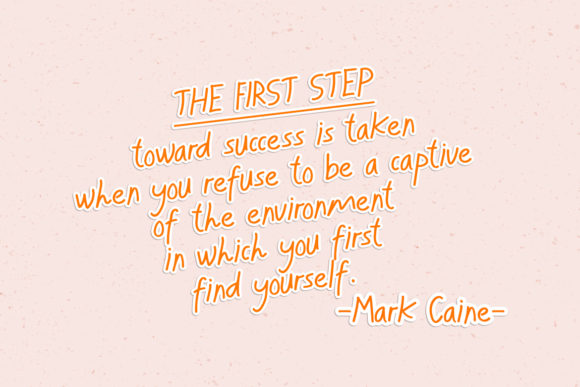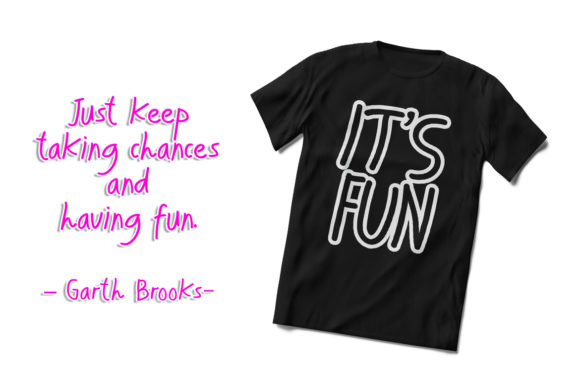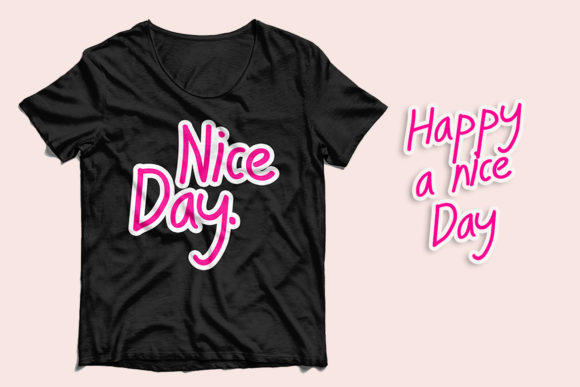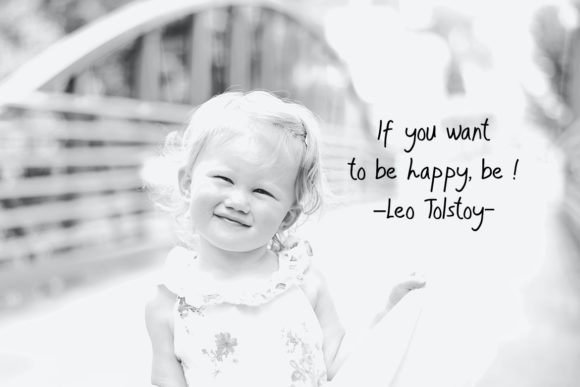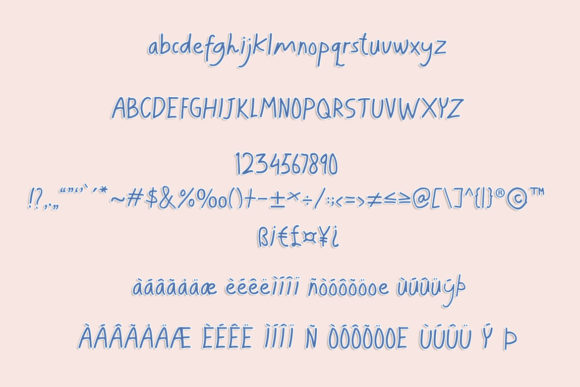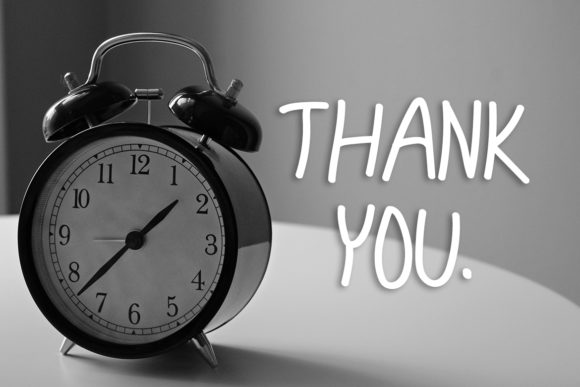
Introduction to Just Like Font
Remember the moment when you first stumbled upon the perfect font for your creative project? The excitement, the joy, and the sense of accomplishment when everything falls into place? That’s exactly what you’ll experience when you discover the Just Like Font. This sweet and joyful handwritten font is designed to brighten up someone’s day and add a personal touch to your designs.
Whether you’re a seasoned designer or a beginner, the Just Like Font is a valuable resource to have in your toolkit. Its high-quality design and transparent background make it perfect for a variety of creative projects, from children’s books to educational materials. And the best part? It’s available for free download, making it an accessible design resource for everyone.
Honest Review: Just Like Font
I recently stumbled upon Just Like Font, a free design resource that caught my attention. As a designer, I’m always on the lookout for high-quality assets to elevate my creative projects.
Just Like Font is perfect for creative projects, such as graphic design, digital art, and typography. It can also be used for business presentations, social media graphics, and marketing materials.